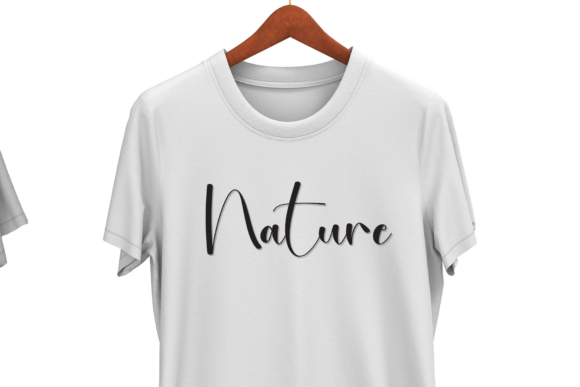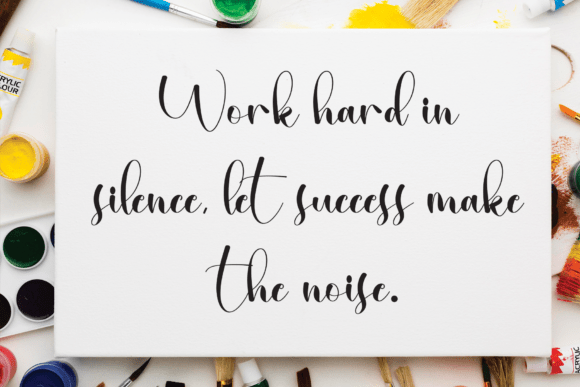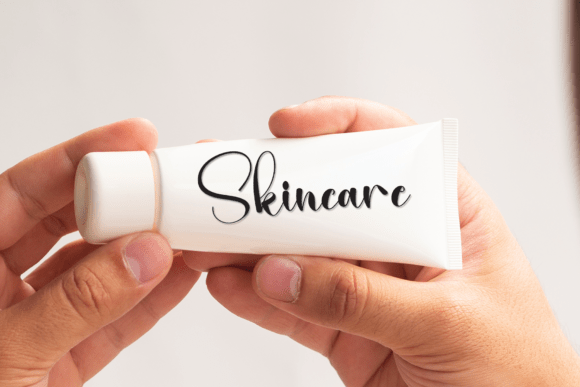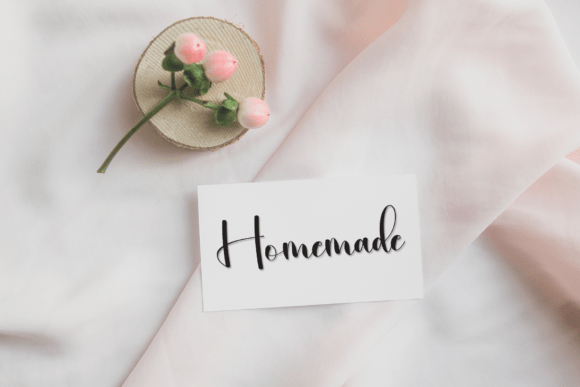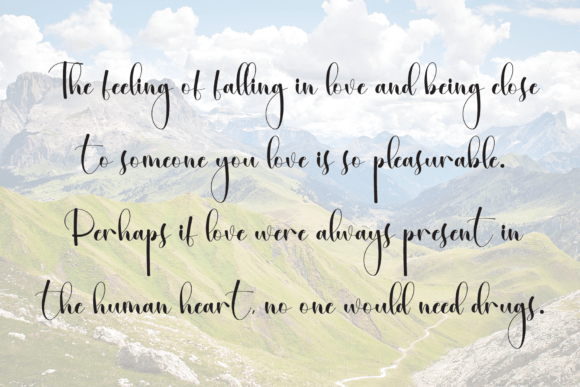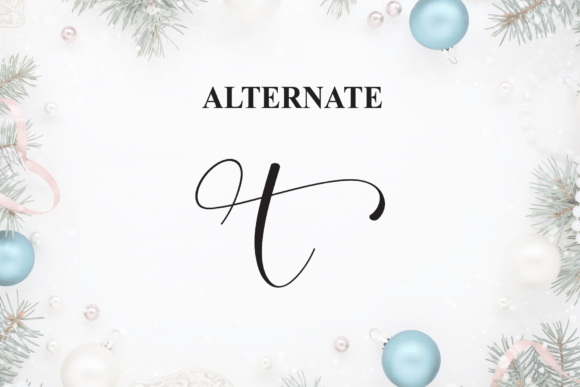
A Timeless Holiday Tradition: The Christmas Font
As the snowflakes begin to fall and the fireplace crackles to life, there’s something magical about the holiday season that inspires us to create. For designers, this means infusing our work with the warmth and elegance of the Christmas spirit. And what better way to do that than with a beautiful, festive font that captures the essence of the season?
The Christmas font is a stunning script that adds a touch of sophistication and whimsy to any holiday project. Whether you’re crafting a family newsletter, designing luxury gift tags, or creating high-end event invitations, this font is the perfect choice. Its flowing swashes and elegant letterforms evoke the traditions of holiday calligraphy, making it a valuable asset for designers looking to elevate their winter designs.
Key Features of Christmas Font
- Size: The font contains 4 styles: Light, Regular, Bold, and Black, each with a unique set of characters and ornaments.
- Resolution: Supports high-resolution displays, making it ideal for digital applications.
- Unique Characteristics: The font features intricate illustrations of Christmas-themed ornaments, decorations, and icons, allowing designers to create festive and whimsical designs.
- Font Weight: Offers a range of font weights, from light and delicate to bold and dramatic, to suit various design needs.
- Font Size: Available in various font sizes, from 8pt to 72pt, to accommodate different design requirements.
Designer Review: Christmas Font
Overall, I think the Christmas Font is a decent choice for a holiday-themed project. ✨ The font’s playful, cursive design does evoke a sense of festive cheer, making it perfect for decorations, gift tags, or social media posts.
One of the things that works well is the variety of font styles available. ✨ You can choose from a range of different weights, from light and airy to bold and dramatic, giving you plenty of options to match your design needs. Additionally, the font’s compatibility with most operating systems and devices is a plus.
However, there are some limitations to consider. ⚠️ The font’s design can feel a bit over-the-top or cheesy, which might not be suitable for more sophisticated or minimalist designs. Additionally, the font’s characters can be a bit pixelated at smaller sizes, which may not be ideal for larger-scale projects.
In terms of overall impression, I’d say the Christmas Font is a fun, lighthearted choice for a holiday project. While it may not be the most sophisticated or versatile font, it’s sure to add some festive flair to your design. ✨ Just be mindful of its limitations and use it in a way that complements your design goals.
- Pros: playful design, variety of font styles, compatible with most operating systems and devices
- Cons: can feel over-the-top or cheesy, pixelated characters at smaller sizes
Getting the Most Out of Christmas Font
To get the most out of Christmas Font, use it sparingly to add a festive touch to your designs. Pair it with bold colors and geometric shapes to create a modern and playful look. Experiment with different font sizes and styles to create visual interest.
Christmas Font is perfect for creating holiday-themed designs, such as Christmas cards, gift tags, and social media graphics. It’s also great for adding a festive touch to party invitations, menus, and other event materials.
Alternatives to “Christmas Font” for Designers
Great Vibes is a beautiful, cursive script font that can be used for Christmas-themed designs, especially for invitations, greeting cards, and social media posts. It’s more elegant and sophisticated compared to Christmas Font, making it suitable for high-end or luxury brand designs.
Comparison to Christmas Font: Great Vibes has a more refined and polished look, while Christmas Font is more playful and festive. Great Vibes is ideal for designs that require a touch of sophistication and elegance.
Carolyna Pro is a modern, elegant script font that’s perfect for Christmas designs, especially for branding, packaging, and advertising materials. It’s more versatile than Christmas Font and can be used for various design projects, from digital to print.